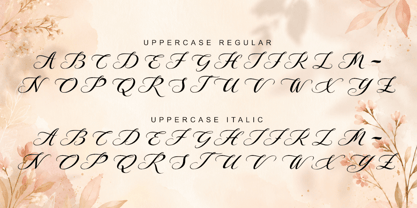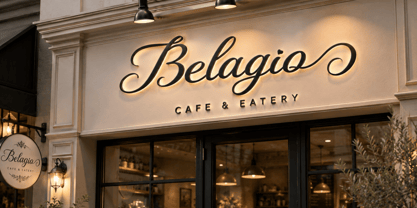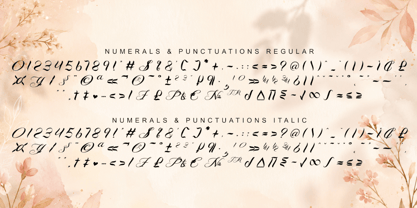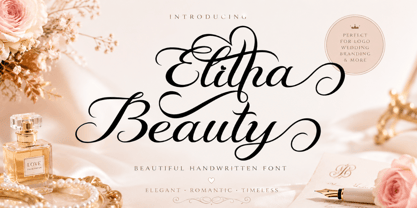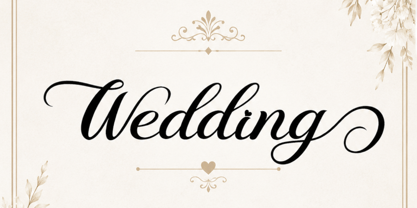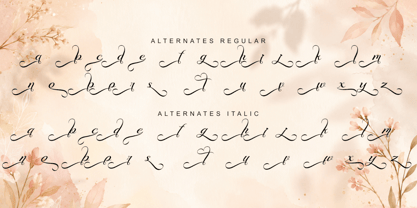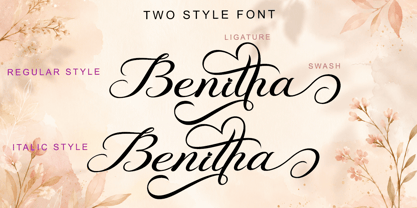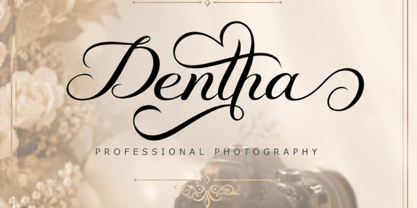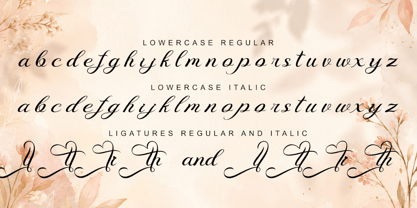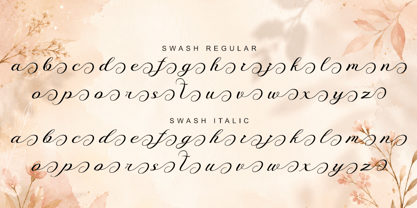
Elitha Beauty Italic
The Elitha Beauty Italic Font Family was designed by Isroni Yoga Prasetya and published by Yoga Letter. Elitha Beauty Italic contains 2 styles and family package options. More about this family
“Elitha Beauty” is a beautiful and elegant handwritten font. It comes in two styles: regular and italic. It features uppercase and lowercase letters, numerals, punctuations, multilingual support, ligatures, swashes, and alternates. It’s perfect for wedding invitations, photography, floristry, social media, advertising, YouTube, Christmas, summer, Valentine’s Day, song titles, movie titles, and more.